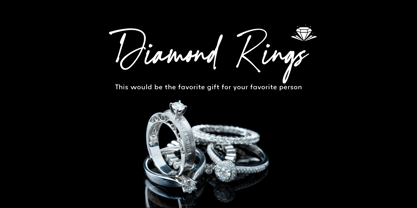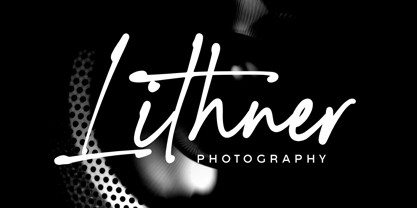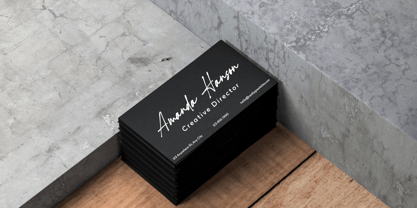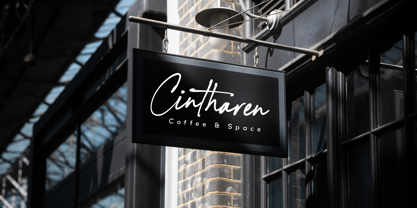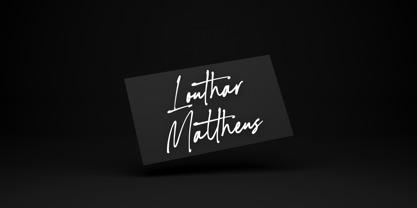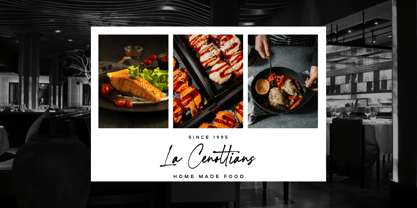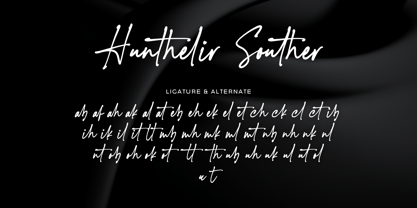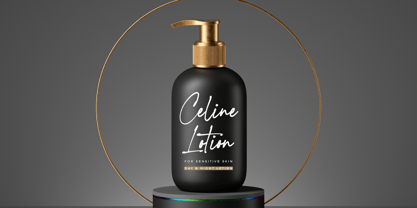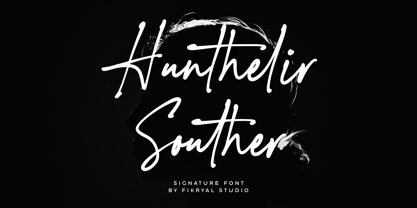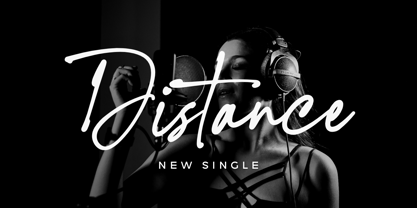
Hunthelir Souther
by Fikryal
The Hunthelir Souther Font Family was designed by Muhammad Fikry and published by Fikryal. Hunthelir Souther contains 1 styles. More about this family
Hunthelir Souther is a luxurious signature font that blends elegance, authenticity, and sophistication. Designed with natural handwritten strokes, stylish ligatures, and creative alternates, this font is perfect for projects that need a personal yet premium touch.
With its smooth flow and refined curves, Hunthelir Souther works beautifully for branding, logos, wedding invitations, product packaging, fashion designs, and social media content. The variety of ligatures and alternates ensures your typography always looks unique, professional, and eye-catching.
Features:
• Elegant handwritten signature style
• Many ligatures for natural connections
• Alternate characters for creative variation
Perfect for:
• Branding & Logos
• Wedding Invitations & Stationery
• Product Packaging & Labels
• Social Media & Instagram Quotes
• Fashion, Beauty & Lifestyle Branding
Add timeless sophistication to your designs with Hunthelir Souther – Signature Font.